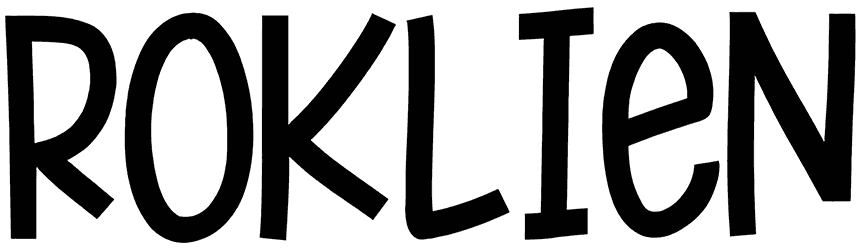
Roklien Font
Suited for all kinds of fun texts, this comic font called Roklien can get the job done wonderfully in its own humorous manner. Is it a game that needs an amusing packaging design? Or do you have to change the theme of an online shop website for children’s apparel?
Anyway, you’ll be in good hands with a captivating baby font like this. The cartoonish letters are only designed as caps, but their cute style doesn’t let you worry about that.